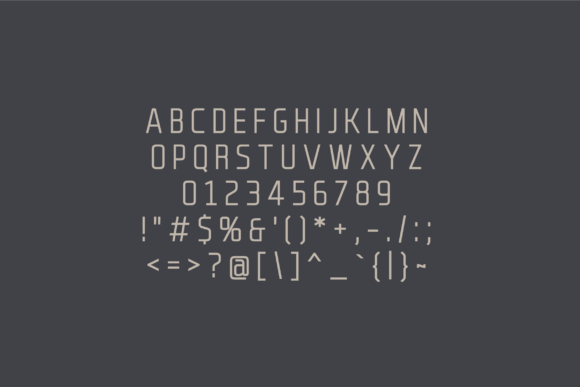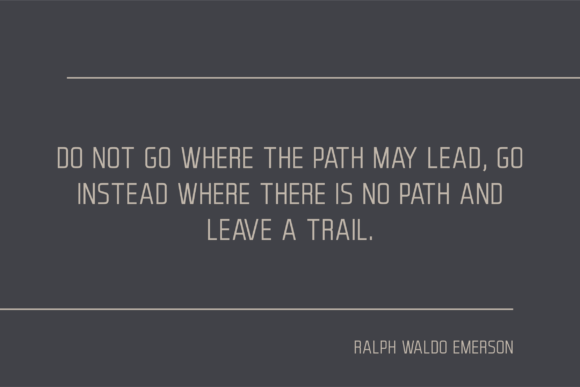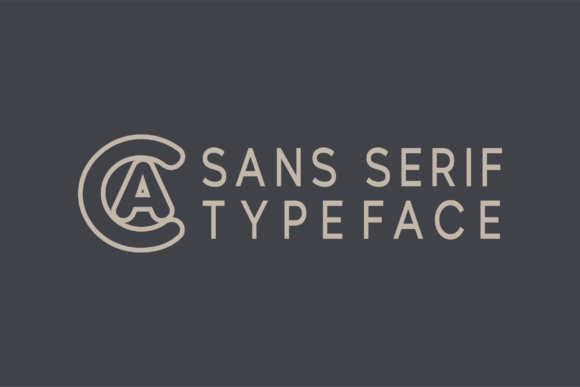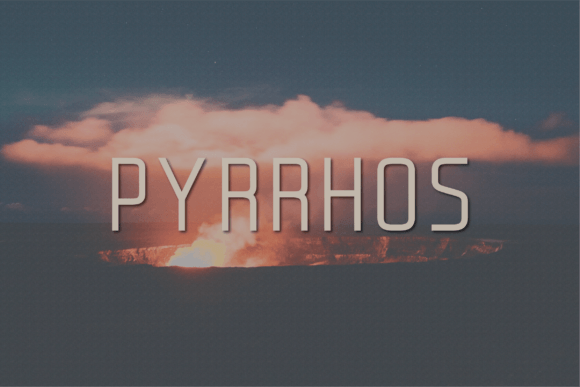
Introduction to Pyrrhos Font
Unveiling Pyrrhos, a sophisticated, contemporary sans-serif font that embodies style and elegance.
Pyrrhos features capital letters, digitals from 0-9, along with a wide array of punctuation and symbols that enhance its versatility This magnificent typeface has the flexibility to seamlessly elevate the appeal of logos, wedding invites, quotes, commercials, print materials, magazines, and beyond.
Key Features of Pyrrhos Font
Why Choose Pyrrhos Font?
Pyrrhos Font offers exceptional quality and versatility, making it a valuable addition to your design toolkit. Whether you’re creating for personal projects or commercial use, Pyrrhos Font delivers professional results.